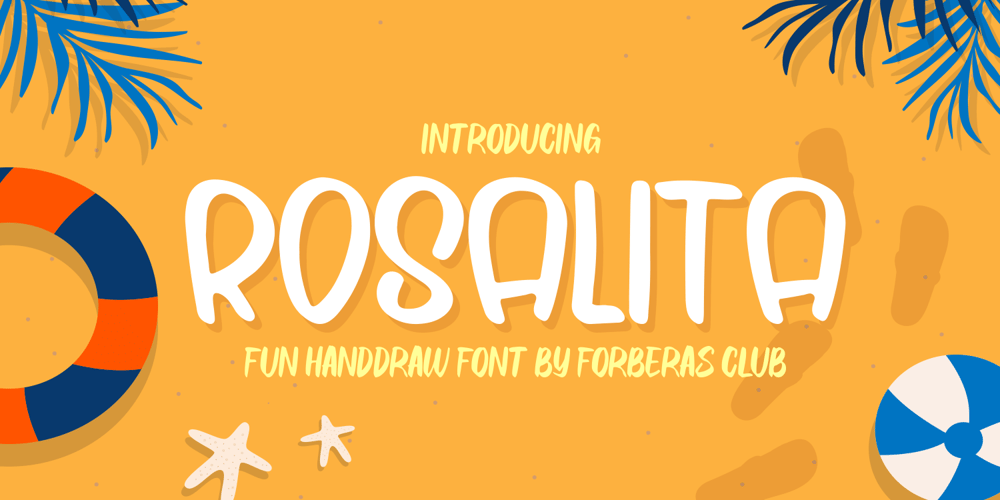
Rosalita
Rosalita font
Rosalita Font Family was designed by ANGGI HERMAWAN and published by Forberas Club. Rosalita contains 1 styles and family package options. The Rosalita font is a cute and playful font. This font was born for crafter, you can use it as T-Shirt Design, merchandise, greeting card, invitation card, cricut design, decorative, or making some artwork. Lighter weights are well-suited for body text while heavier ones are ideal for high impact headlines.